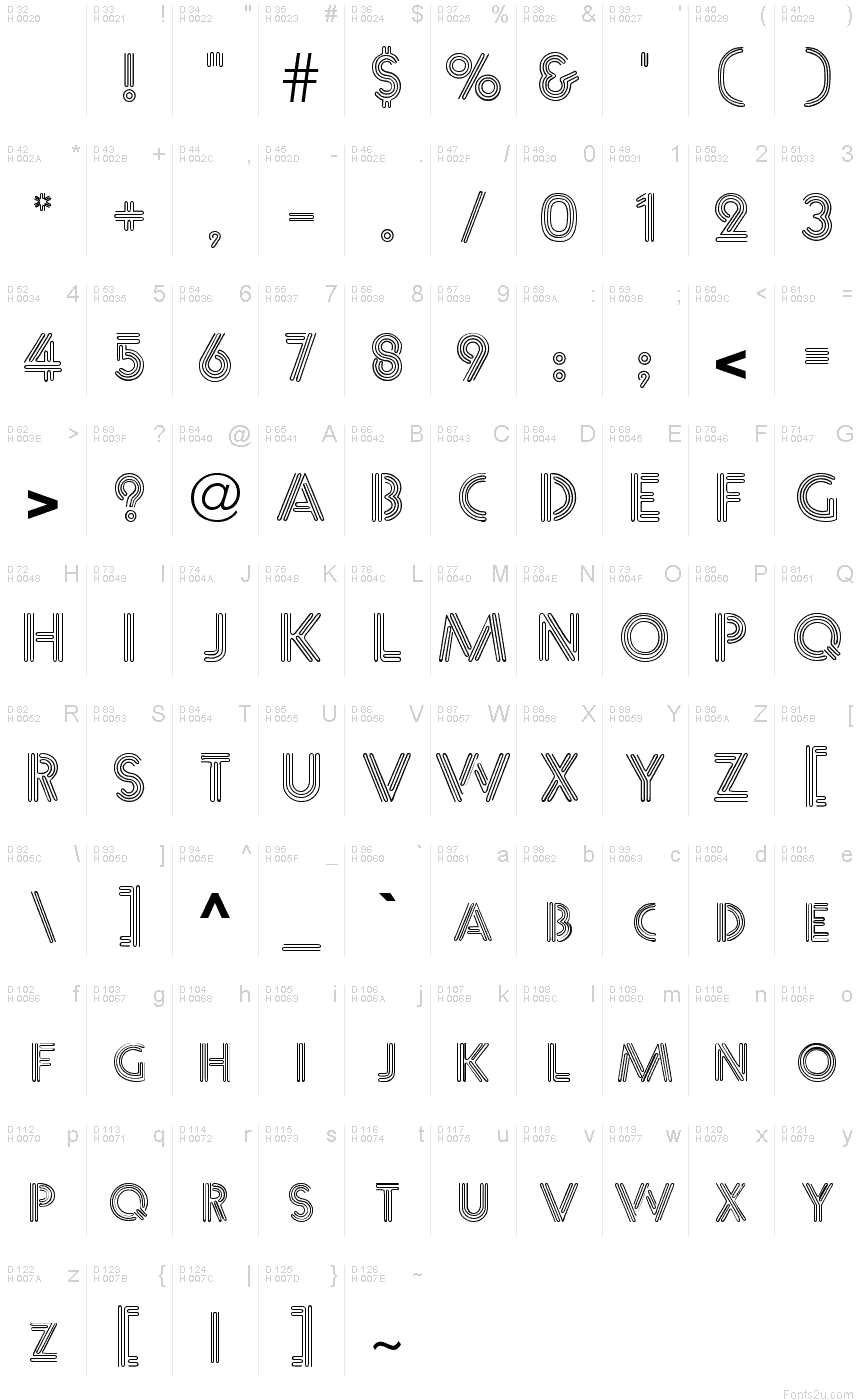
Diner Normal
Diner font by Computer Support Corporation is a free groovy display typeface that instantly drops your layout into a chrome-and-neon roadside sign. Its parallel tube-like strokes, rounded corners, and airy gaps echo glowing glass lettering, giving every word a smooth, humming energy. The lines stay clean and consistent, so even with all that retro flair, your message stays sharp and legible at a glance.
Using Diner, headlines feel like they’re lit from within-great for restaurant branding, menu covers, event posters, retro packaging, signage, and bold social graphics. This free font thrives at large sizes where the layered strokes can really breathe. Pair it with a simple geometric sans serif for small text to let Diner handle the marquee moments while the supporting copy stays calm and clear.